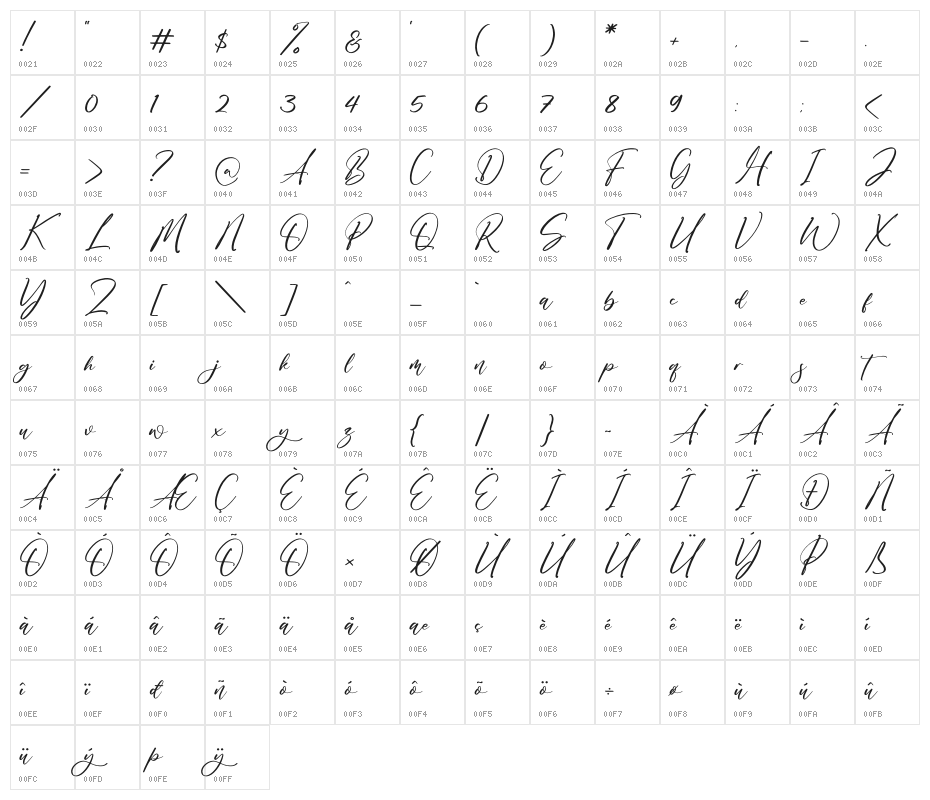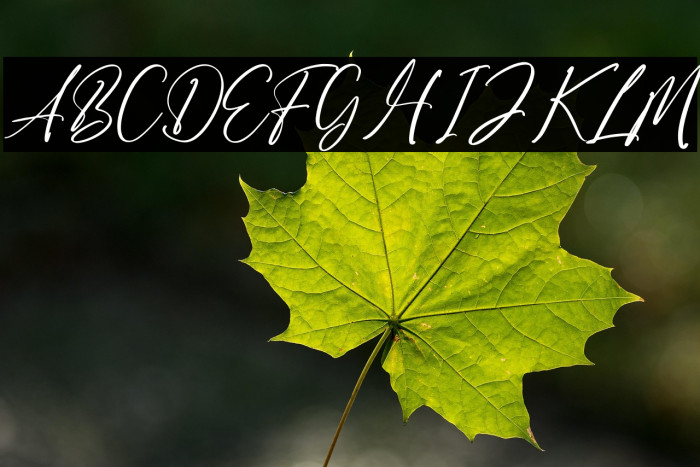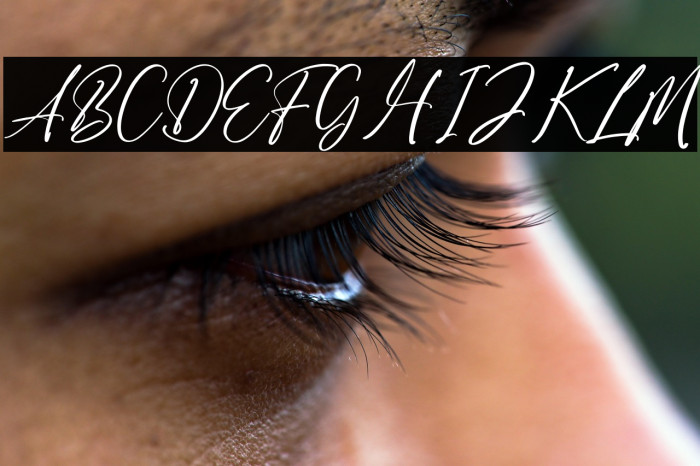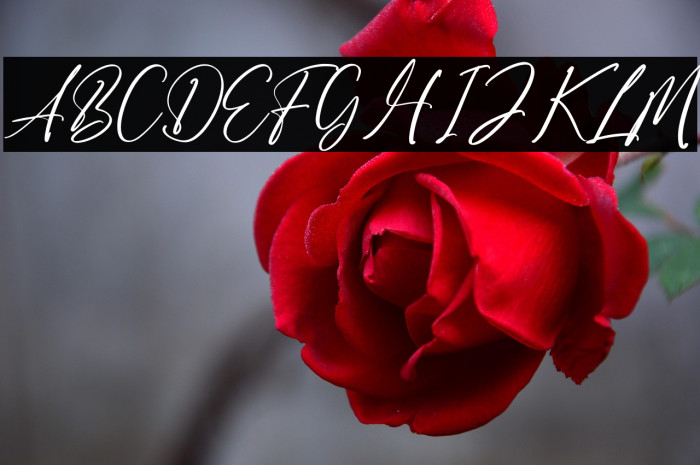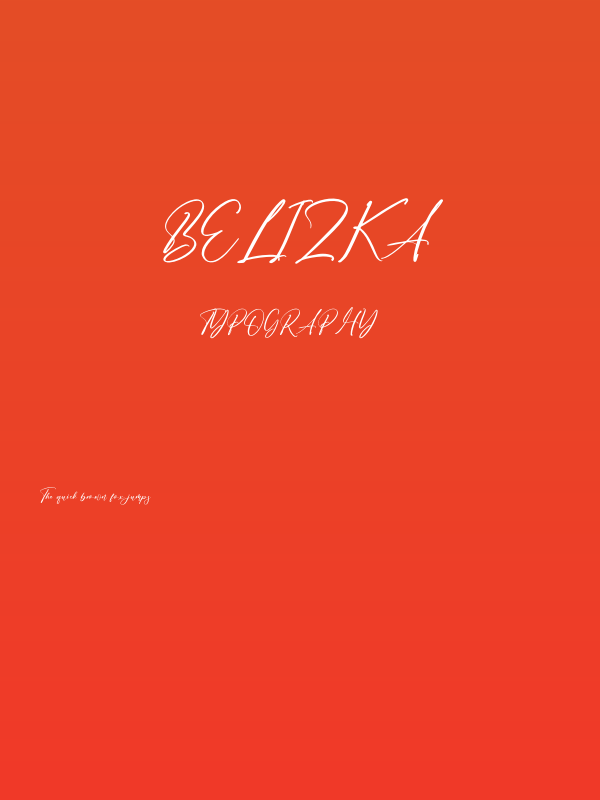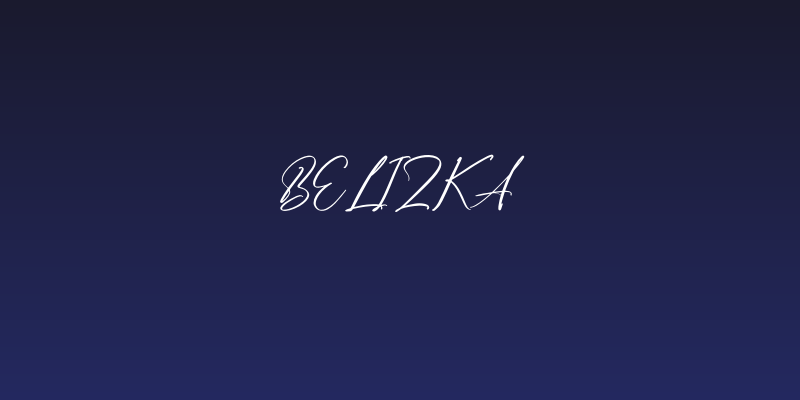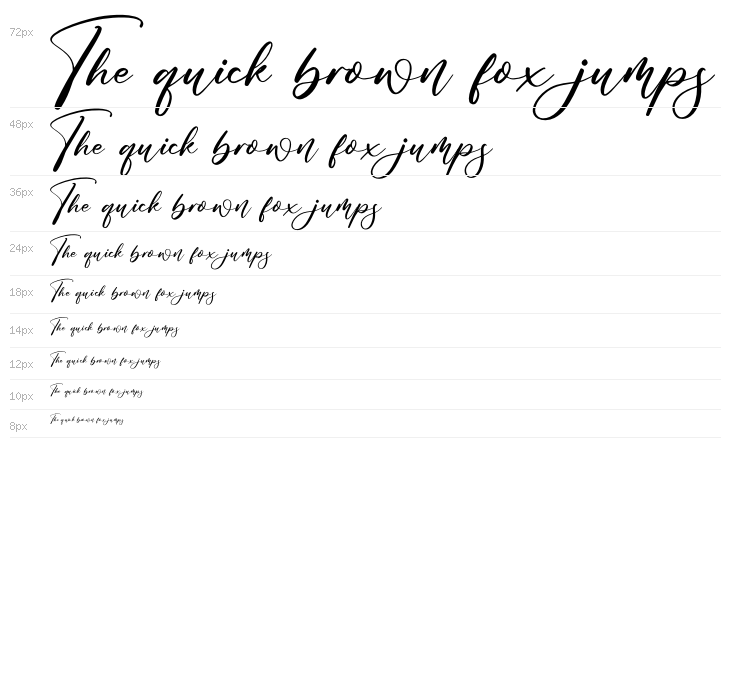
Belizka Font
Belizka Description
This elegant script font features flowing, cursive letters with a natural and fluid style. The uppercase letters are tall and graceful, while the lowercase letters maintain a consistent rhythm and balance. The numerals are stylish and complement the overall design, and the special characters are well-integrated, adding versatility. The font's strokes vary in thickness, providing a dynamic and lively appearance. Its sophisticated and artistic flair makes it suitable for a variety of creative projects.
| Proposed Projects | Ideal for wedding invitations, greeting cards, branding, and elegant logos. |